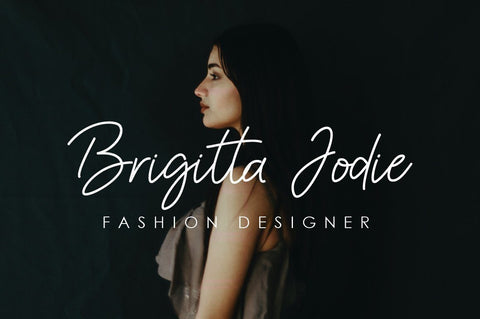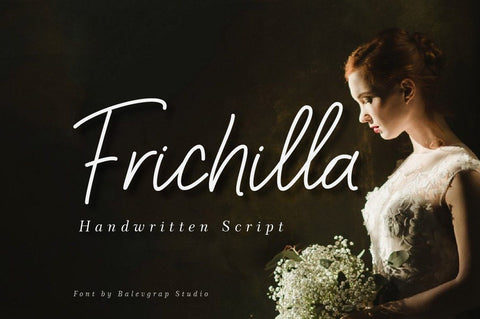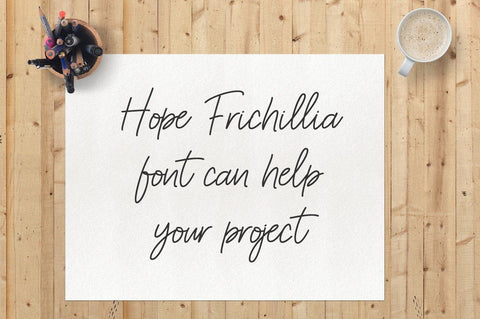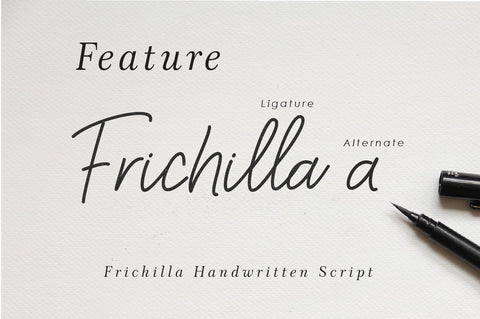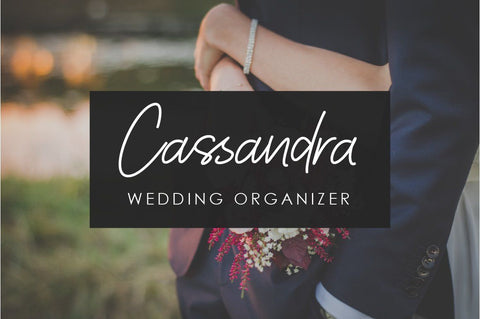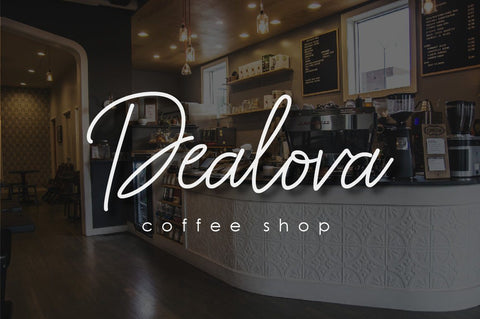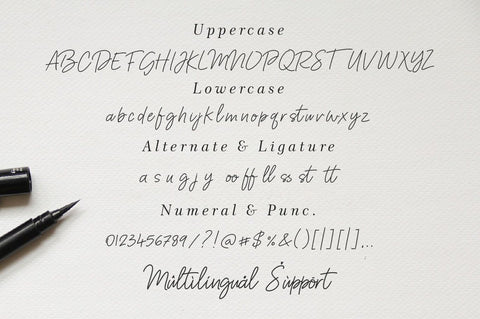
Frichilla Handwritten Script Font
Frichilla is a handwritten script style font that looks relaxed natural and a bit classic.
Frichilla would perfect for photography, watermark, social media posts, advertisements, logos & branding, invitation, product designs, label, stationery, wedding designs, product packaging, special events or anything that need handwriting taste.
- Uppercase, Lowercase, Numerals & Punctuations
- Ligature & Alternate
- Multilingual support